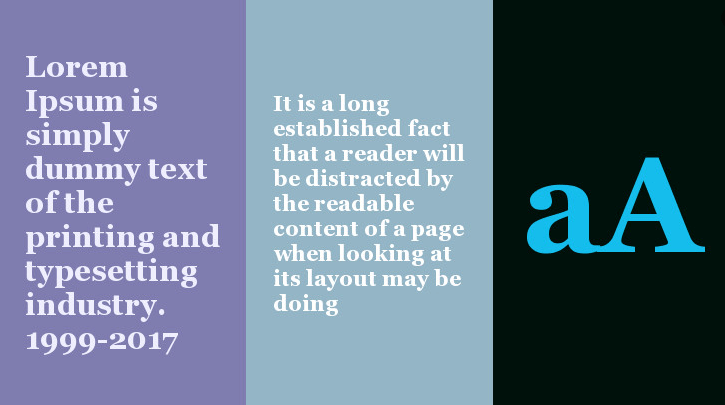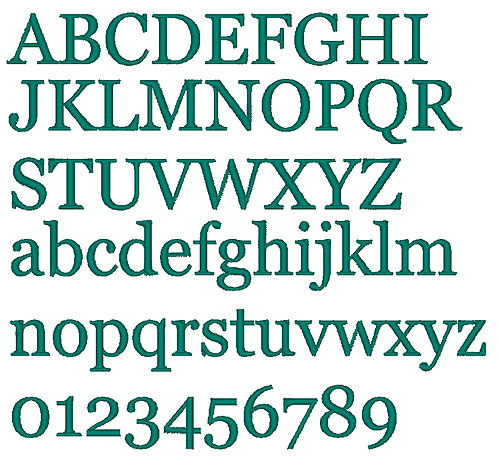
Georgia
This is best to use in printing and display designs.
Georgia font free download. As regards to useful modern day typography manrope is the actual deal. Typeface leave a comment. Georgia font is the beautiful typeface that is available in 79 languages.
Georgia font free download. This sans serif font from pixel surplus has. Matthew carter designed this font family in 1993.
Georgia is the serif companion to the sans serif screen font verdana. Georgia is a serif typeface designed by matthew carter for microsoft corporation in the mid 1990s. Moreover you can embed it to your website with atfont face support.
The font is encouraged by scotch roman layouts from the 19th century and was dependant. Download font georgia pro from this family. Georgia was designed in 1996 by matthew carter and hand tuned for the screen by tom rickner.
Free download zapf chancery medium italic rhino forte download starstruck helvetica lt condensed swiss 721 bold condensed font free download futura lt family download goboldlowplus swiss 721 free download brannboll f personal use only. Georgia font available in ttf format for you to download. This typeface was designed as a serif companion to the verdana font family with a goal to appear elegant but legible on low resolution screens as well as when printed at small sizes.
Download georgia pro font family for free. It was supposed as a serif font that will appear classy but legible printed little or on low resolution screens. The georgia family received a major update in 2011 by monotype imaging the font bureau and matthew carter.
Georgia is usually a serif typeface built in 1993 by matthew carter and hinted by tom rickner to the microsoft company.